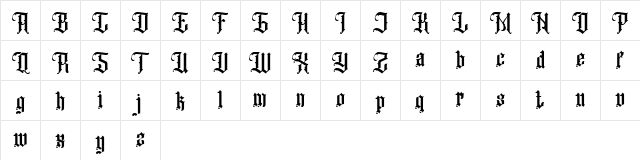
Black Klisse Free Font is a composed and adaptable typeface that performs quietly and consistently across a wide range of design contexts.
Pro Tip: Use Black Klisse Free Font in both headline and body roles to test its range before committing to a single application.